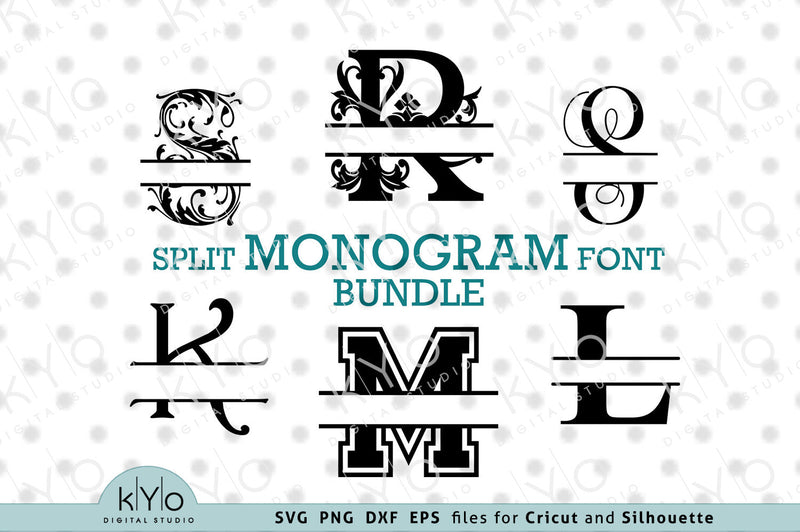
Split Monogram font bundle SVG files for Cricut and Silhouette
Split monogram font letter bundle svg files for Cricut, Split letters svg
- Floral Split Font letters,
- Regal Split Font letters,
- Vine Split Font letters,
- Harrington Split Font letters,
- College Split Font letters,
- Roman Split Font letters.